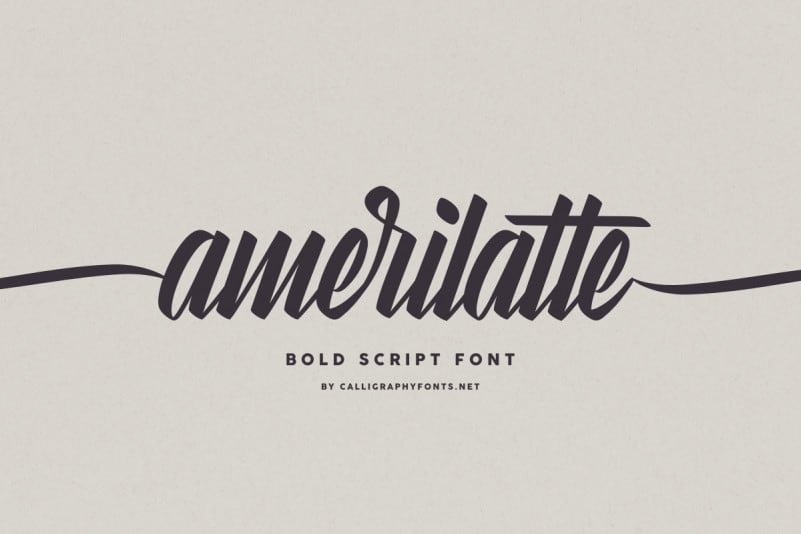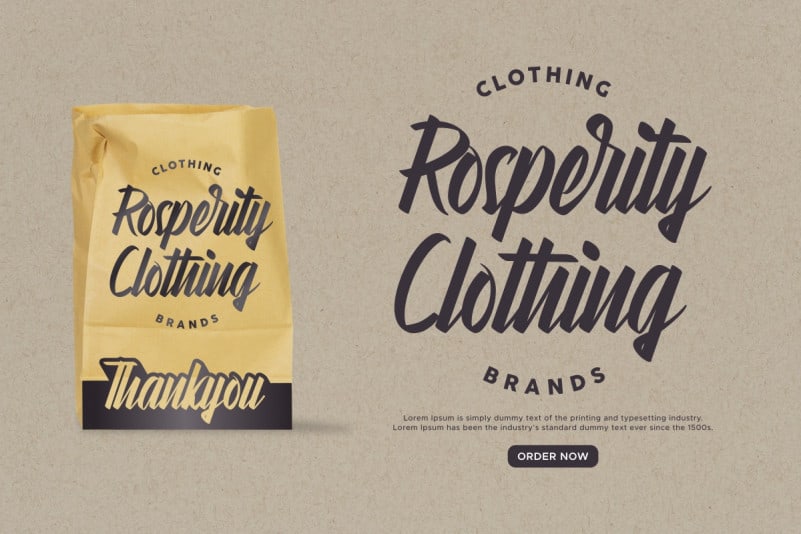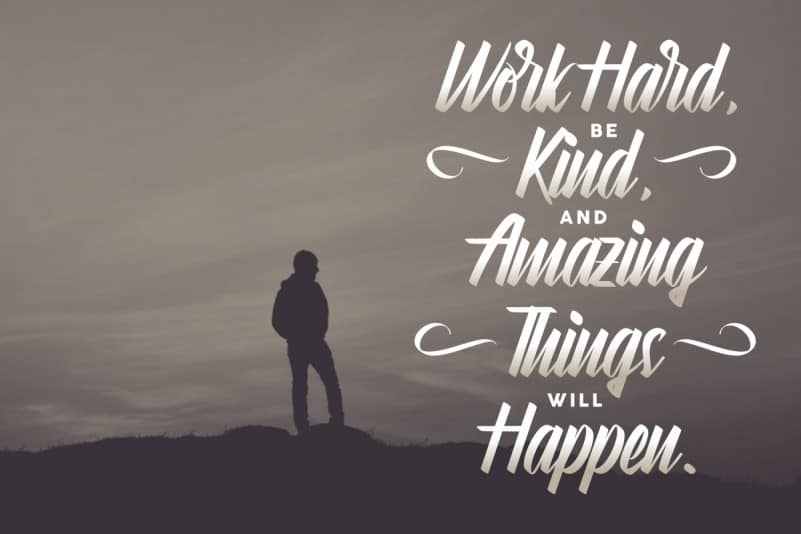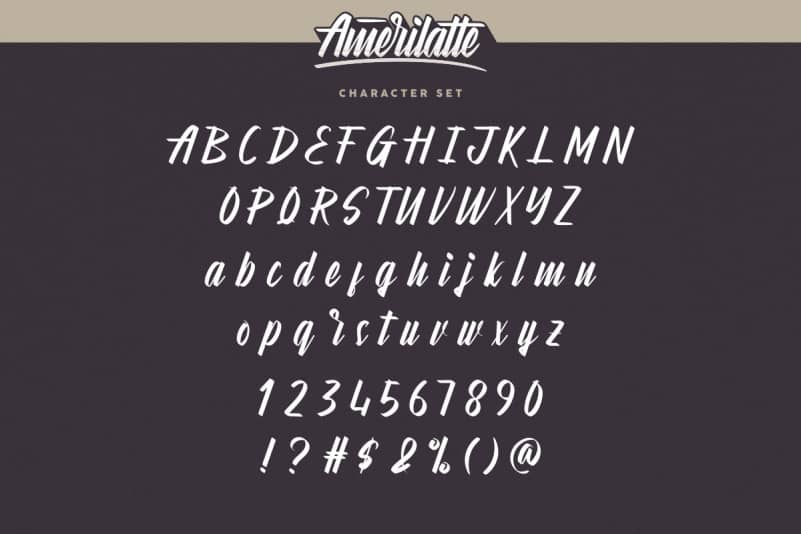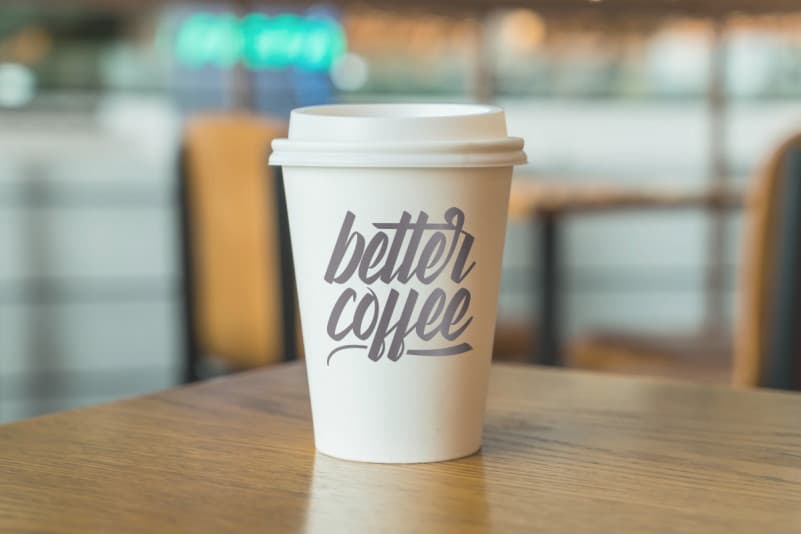
Amerilatte Brush Script Font
Amerilatte Brush Script Font is a Hand brush script typeface. The style of this font are contemporer, oldschool, elegant, luxury and classic brush font.